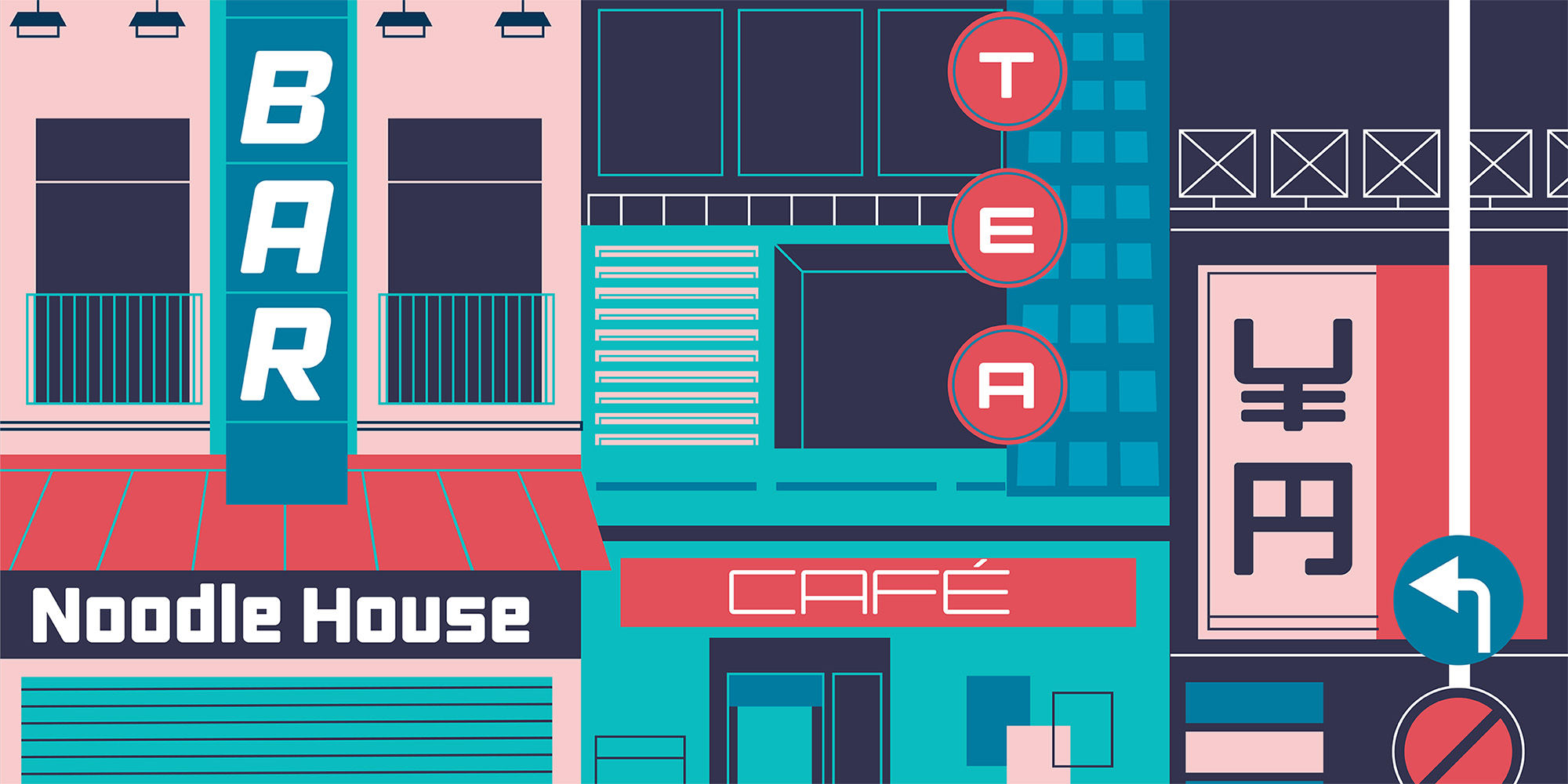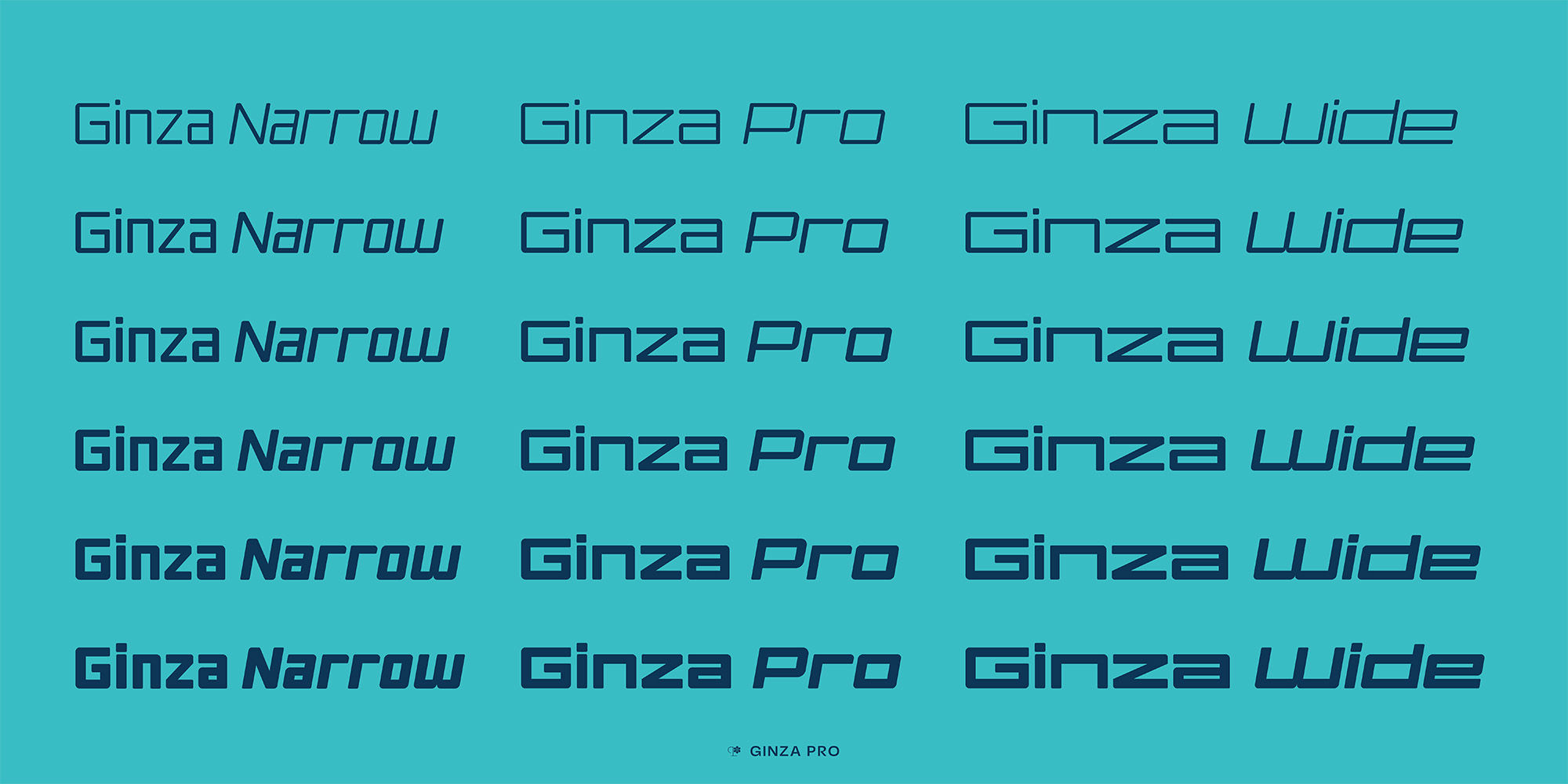
Ginza Pro Narrow
Small Caps
This typeface was drawn in 2007, released in 2008, and remastered in 2024. Why? I've always enjoyed seeing this typeface used in video games, packaging, apps, and clothing. To go back and expand it to give users more options and flexibility seemed like the right thing to do. It’s just a fun a typeface… clean, crisp, fast, and of course it lendds itself to the futuristic and modern vibe inspired from its namesake. Going back to clean up glyphs and add more language support, turned into a complete redraw and expansion, adding more weights, more widths, and variability.